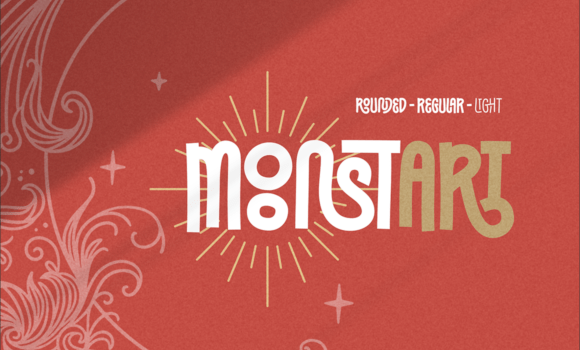
moonstart
Moonstart Font – Free Download Introduction to Moonstart Font Introducing Moonstart, an exquisite, condensed decorative typeface that effortlessly imparts an artistic grace and personal touch to every project it graces. 📸 Preview Gallery 6 images 📌 Product Name Moonstart Font